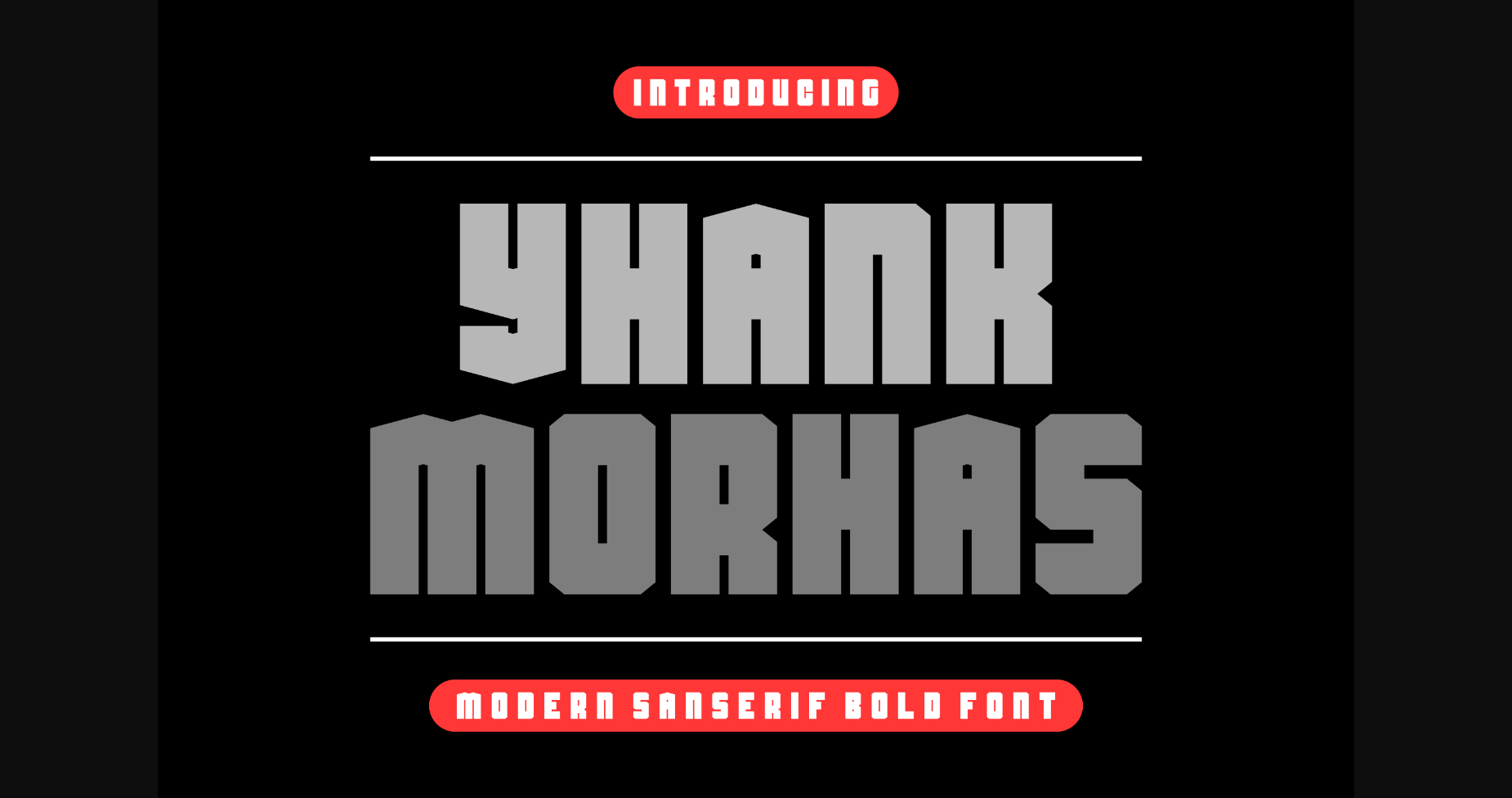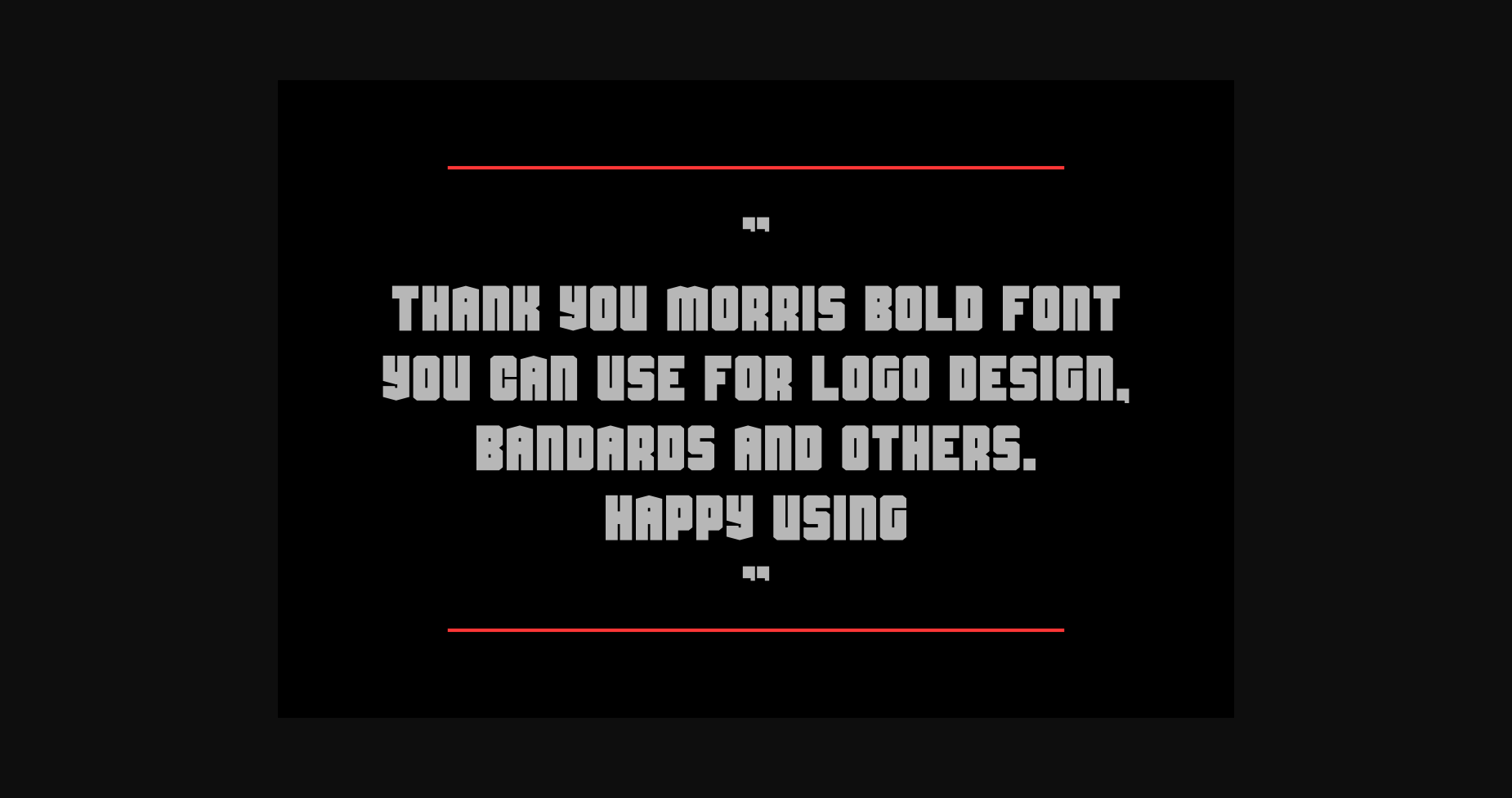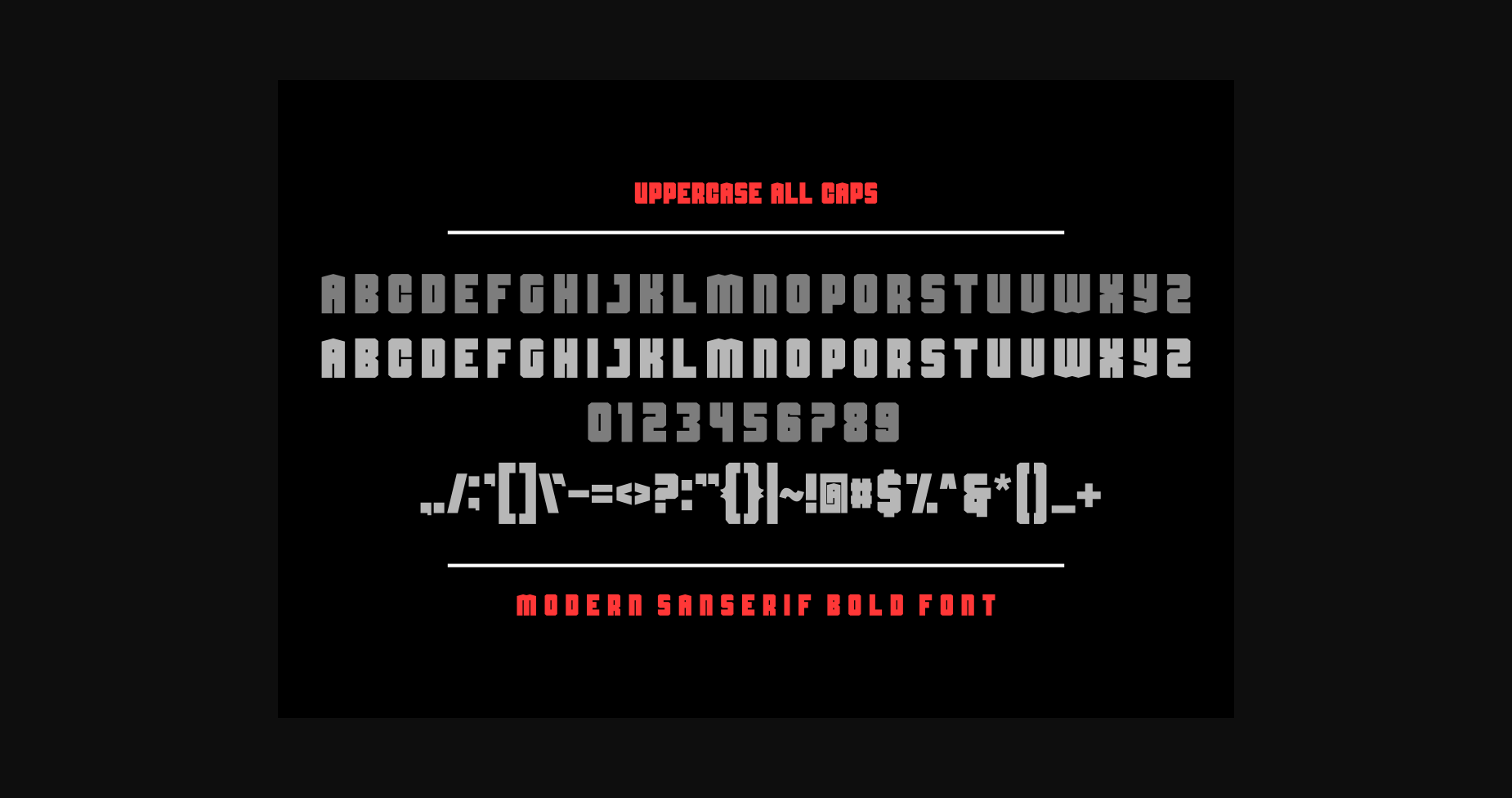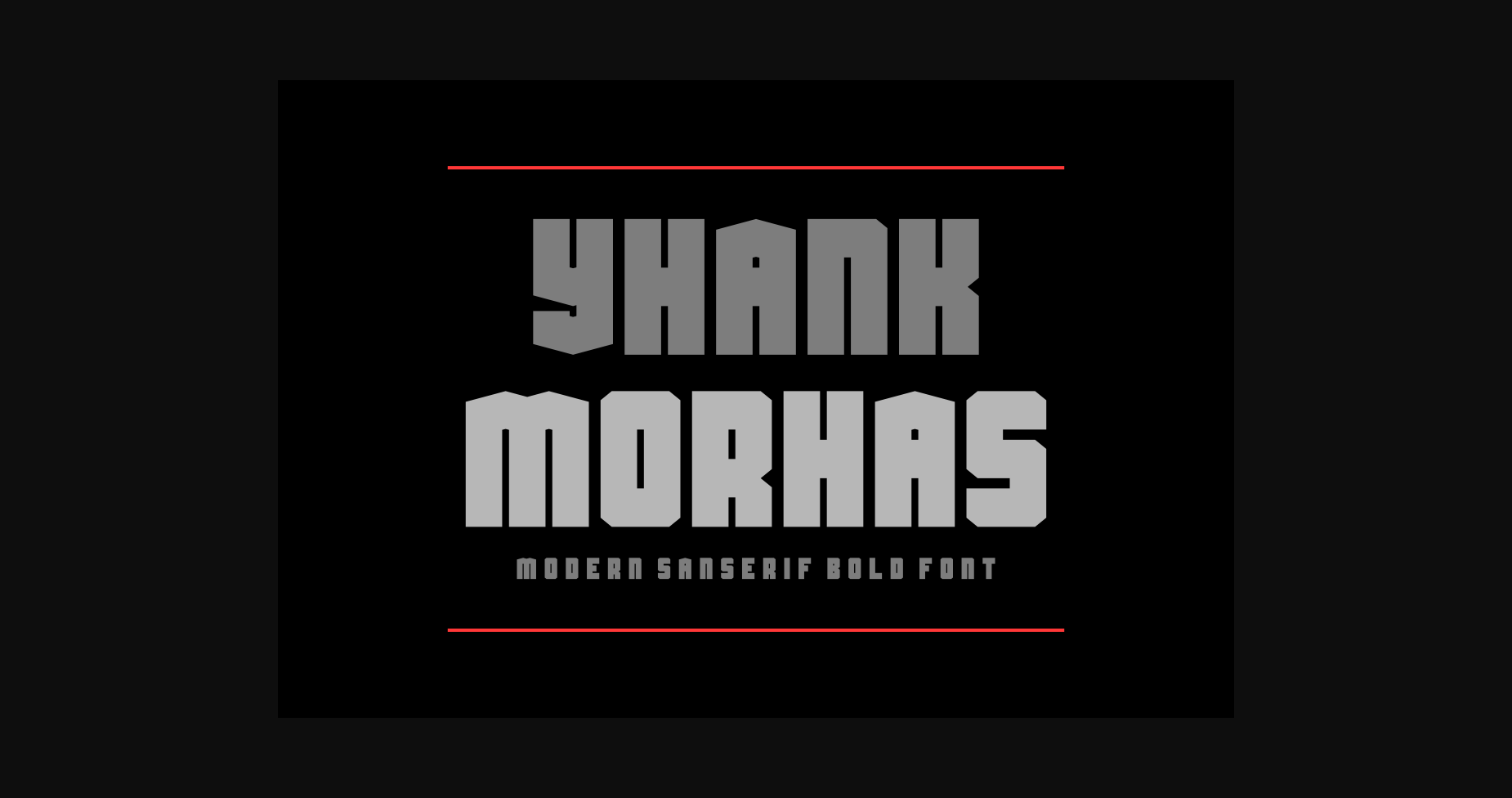
Yhank Morhas Font
About Yhank Morhas Font
Yhank Morhas is an elegant and bold serif font. Fall in love with its incredibly versatile style and use it to create gorgeous wedding invitations, beautiful stationary art, eye-catching social media posts, and much more!